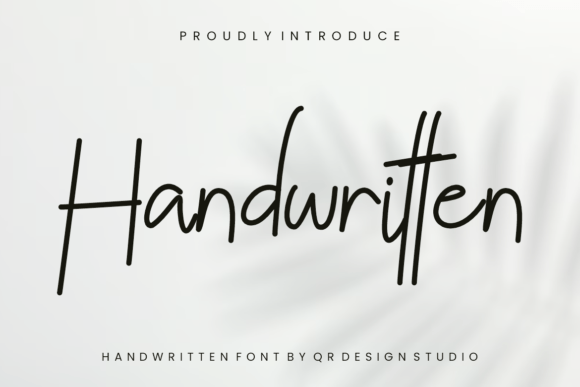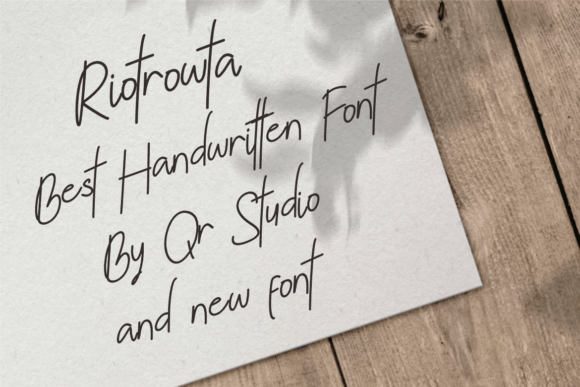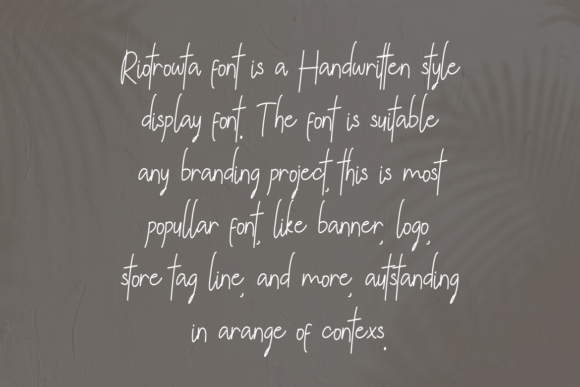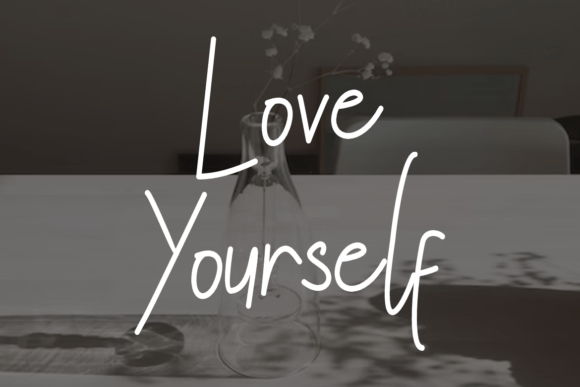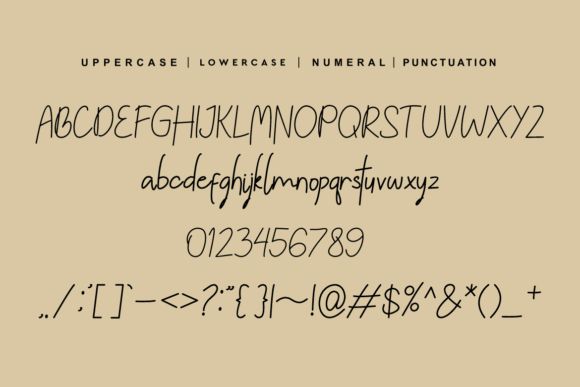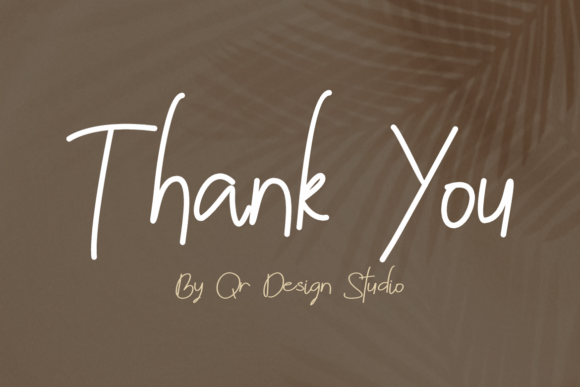
Introduction to Riotrowta Font
Have you ever found yourself in a creative block, staring at a blank canvas, searching for that perfect font to elevate your design? For designers, this moment is all too familiar. It’s the moment when the right font can make or break a project. That’s where Riotrowta Font comes in – a bold and authentic display font that’s sure to take your design to the next level.
As a valuable resource for designers, Riotrowta Font offers a high-quality solution for any creative project. With its transparent background, it’s perfect for branding, logos, and even digital designs. Whether you’re working on a food label, a kids’ book, or a wedding invitation, this font is sure to make a statement.
Key Features of Riotrowta Font
- High-quality design resource ideal for creative projects, offering a unique and eye-catching aesthetic.
- Features a transparent background, allowing for seamless integration with any design or background.
- Includes a wide range of characters, including uppercase and lowercase letters, numbers, and special symbols.
- Designed with a high resolution, making it suitable for use in various mediums, including print and digital applications.
- Comes in a single font size, but can be easily scaled to fit any design project.
- Perfect for designers looking for a bold and modern design resource to elevate their creative project.
Honest Review: Riotrowta Font
I recently stumbled upon the Riotrowta Font while searching for a unique design resource for my creative project. As a designer, I was excited to dive in and explore its features.
What works well is the font’s versatility. It comes in a range of styles and weights, making it easy to use across various design applications. The high quality of the font is also impressive, with crisp and clear typography that’s perfect for both digital and print designs. ✨ Another great feature is the transparent background, which allows for seamless integration with any design.
- High-quality typography
- Range of styles and weights
Overall, I’m impressed with the Riotrowta Font’s design and functionality. While it may have some limitations, it’s a great resource for designers who need a unique and high-quality font for their creative projects.